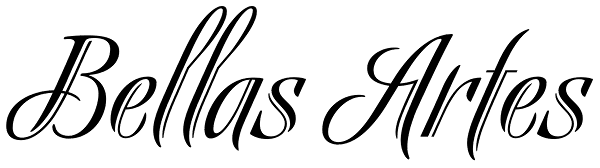
Bellas Artes
Bellas Artes is what happens when the brush of Angel Koziupa and the technical expertise of Alejandro Paul go face to face with the Art Deco aesthetic. The recognizable Koziupa curves become players of a game of halves, where there is no such thing...